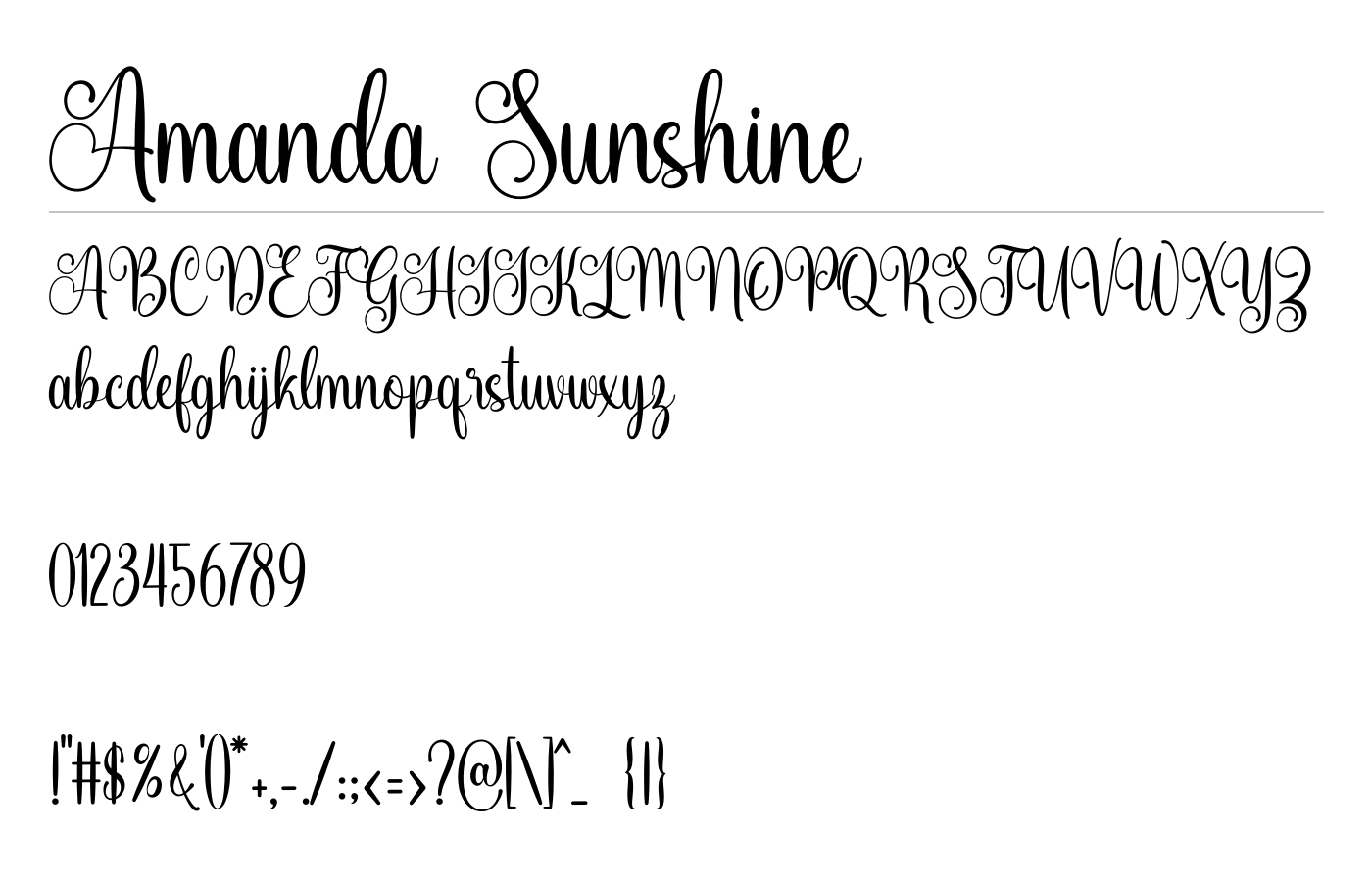
Amanda Sunshine is a charming script font with elegant, flowing strokes and delicate swashes that give it a playful yet sophisticated feel. Its tall, narrow letterforms with high contrast and decorative uppercase letters make it perfect for invitations, branding, and projects seeking a touch of feminine warmth and creativity. This font works beautifully in headlines or logos where a graceful and distinctive handwritten style is desired.
Amanda Sunshine Font
About Amanda Sunshine Font
| Font family | Amanda Sunshine Font |
| Designer | Hamber Perdiansyah |